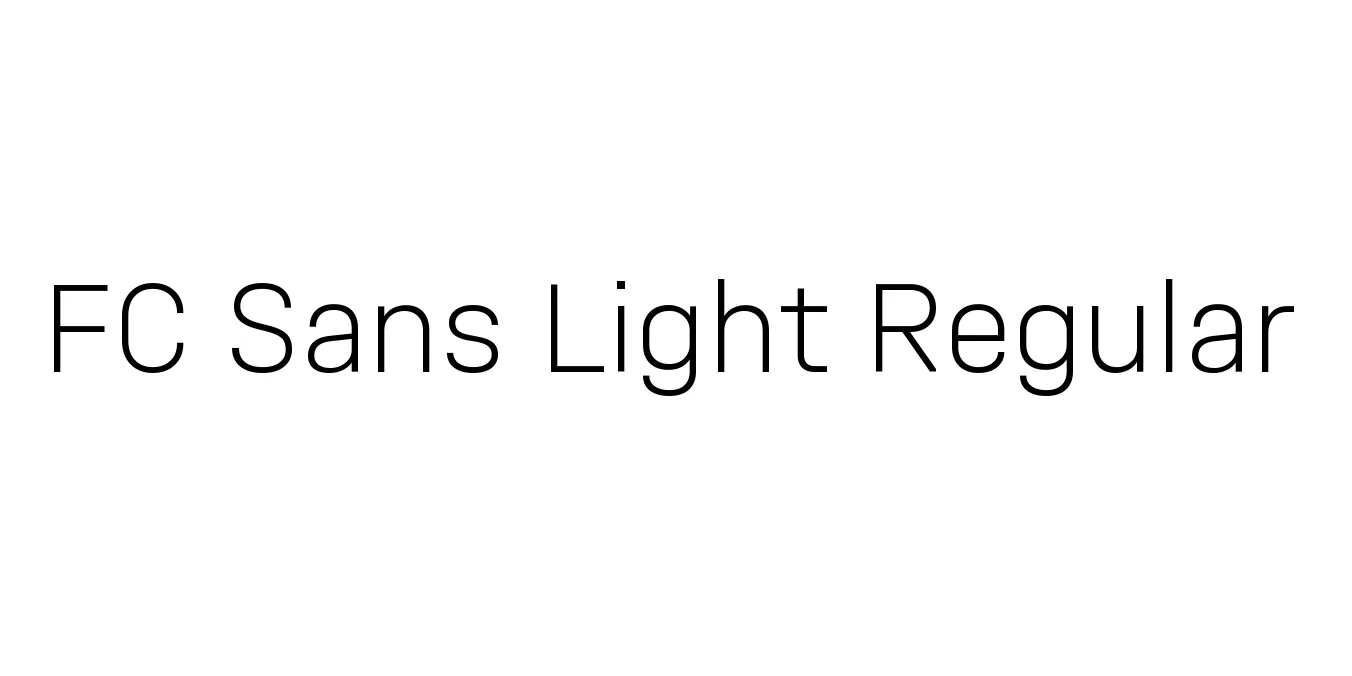
FC Sans Light Regular
Designed by Atipong Suban-na-ayudhya (Fontcraft)
| Font Name | FC Sans Light |
| Designer | Atipong Suban-na-ayudhya (Fontcraft) |
| Similar Fonts | Helvetica, Montserrat, Roboto, Prompt |
FC Sans Light Regular is a modern, geometric sans-serif typeface meticulously crafted by the Fontcraft design studio. It stands out for its clean, balanced proportions and exceptional readability, making it a versatile choice for a wide array of digital and print applications. The Light Regular weight provides a delicate, sophisticated aesthetic that is particularly effective in minimalist design environments where clarity and elegance are paramount.
This typeface is highly regarded for its seamless integration of Thai and Latin characters, ensuring a consistent visual identity in multilingual projects. Its contemporary design language makes it a preferred choice for modern branding, user interface design, and high-end editorial work. By blending traditional sans-serif principles with modern stylistic nuances, FC Sans Light Regular delivers a professional typographic solution that remains timeless and functional.
FC Sans Light Regular Best Uses
Ideal for minimalist website layouts and clean user interfaces.
Perfect for luxury or modern corporate identity systems.
Excellent for body text in magazines or digital publications.
Great for posters and social media graphics where clarity is key.